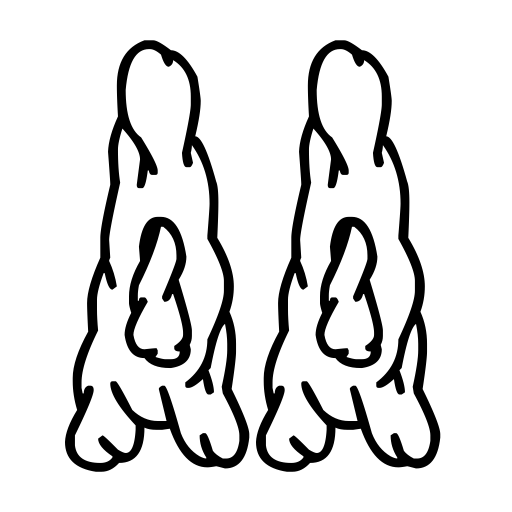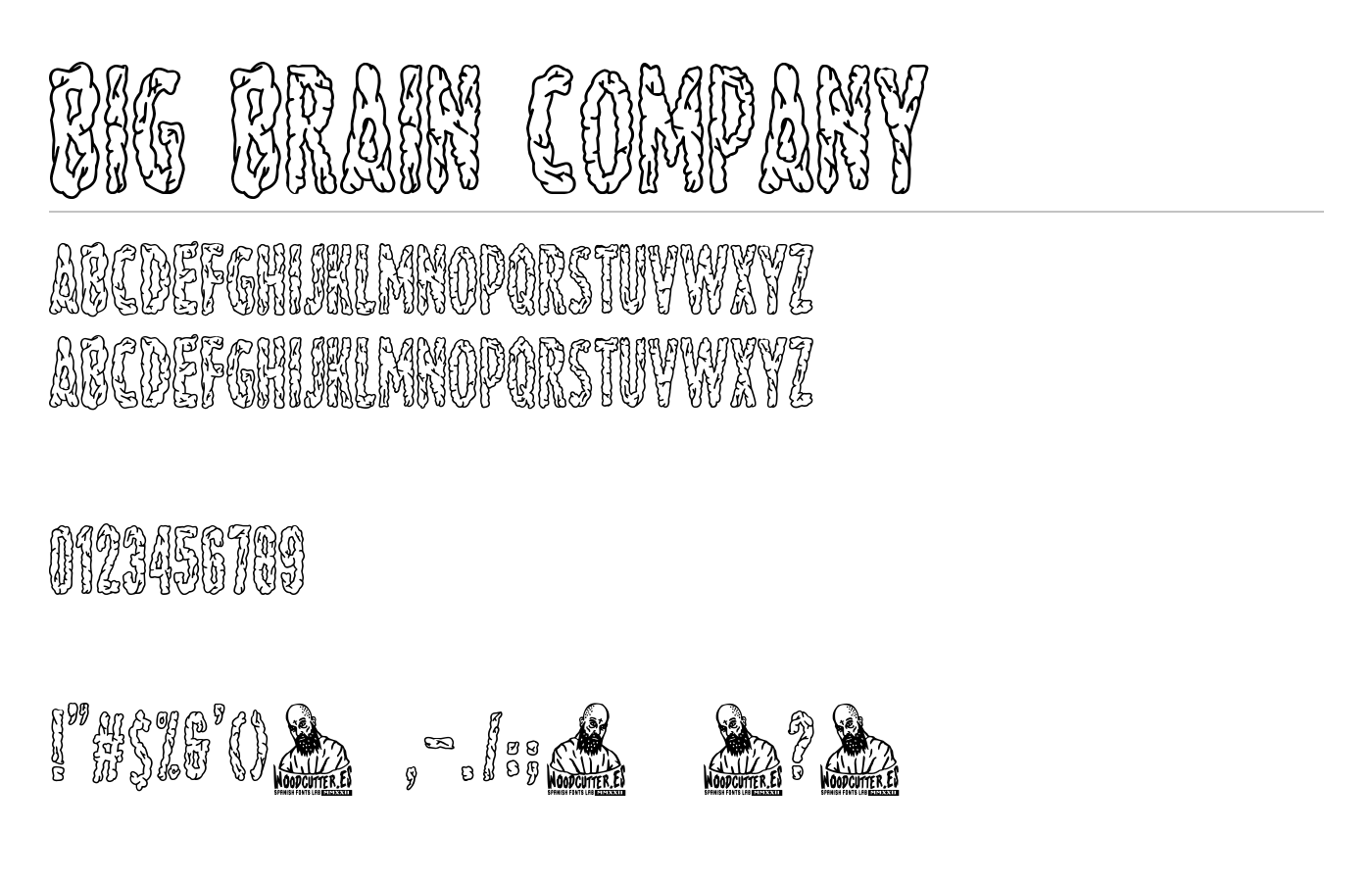
Big Brain Company Font is a quirky, hand-drawn display typeface with a playful, irregular outline resembling melting or gooey textures. Its bold, condensed letterforms with uneven stroke edges give it a fun, casual vibe perfect for eye-catching headlines, creative projects, and informal branding that wants to stand out with a unique, whimsical personality. This font works well where a distinctive, artistic style is needed, such as posters, comics, or themed event materials.
Big Brain Company Font
About Big Brain Company Font